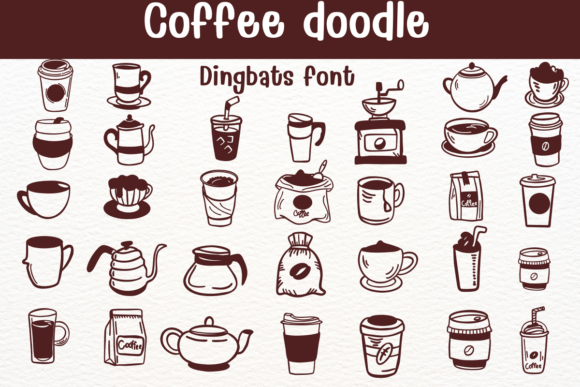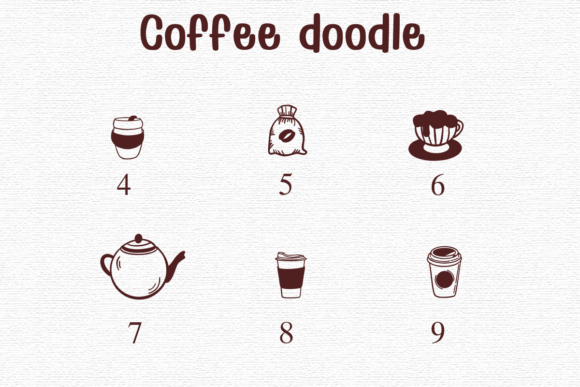
Coffee Doodle Font
About the Coffee Doodle Font
Welcome to the world of Coffee Doodle Font, a typeface that will inspire your next great project. Coffee Doodle is a charming dingbats font that brews up a warm variety of coffee-themed illustrations—from cups and mugs to beans, grinders, and takeaway drinks. Perfect for café branding, menu designs, coffee lovers’ merch, and social media visuals with a cozy caffeine vibe.
Coffee Doodle excels in applications requiring a playful, friendly aesthetic. Ideal uses include logos for coffee shops, packaging for coffee-related products, short menu items, and social media graphics. It’s less suitable for large blocks of text or body copy due to its illustrative nature and potentially low readability at smaller sizes. Avoid using it in UI design or situations demanding high legibility.
Pairing Coffee Doodle with a clean sans-serif like Montserrat or a slightly more playful script font such as Pacifico would create a balanced and visually appealing design. For a more sophisticated feel, consider pairing it with a classic serif font like Playfair Display, which adds contrast and visual weight.
The font’s overall personality is cheerful and approachable, making it perfect for brands targeting a young, casual audience. Its informal style conveys warmth and a sense of approachability, enhancing the feeling of comfort and enjoyment associated with coffee culture.
Coffee Doodle Font Usage Examples
Coffee Doodle Font Example